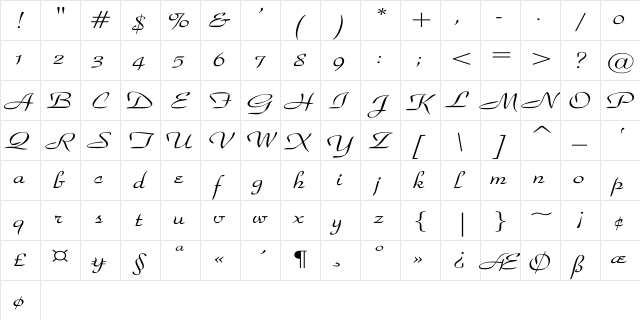
Park-Avenue-Ro Wd Regular
Design Context for Park-Avenue-Ro Wd
Park-Avenue-Ro Wd is a composed and adaptable typeface that performs quietly and consistently across a wide range of design contexts.
Pro Tip: Use Park-Avenue-Ro Wd in both headline and body roles to test its range before committing to a single application.